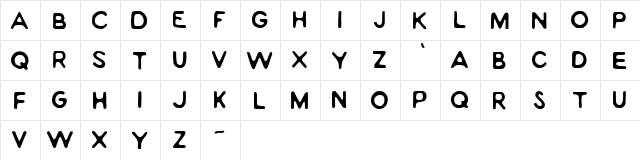
North Way Regular
| Foundry | Makaryo.Co |
| Designer | Fitra Dwivani |
Design Context for North Way Typeface
North Way offers clean, dependable letterforms without strong stylistic allegiance, making it a practical choice for designers who need flexibility.
Pro Tip: Pair North Way with a font of contrasting weight or personality to build a more expressive typographic hierarchy.